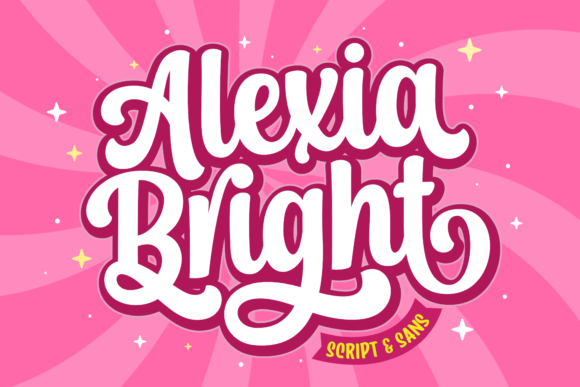
The Elusive Font: My Journey with Alexia Bright
I still remember the frustration of working on a design project, hours spent searching for the perfect font, only to come up empty-handed. My client wanted something elegant, yet playful; delicate, yet impactful. It was as if I was searching for a needle in a haystack. That’s when I stumbled upon Alexia Bright, a beautiful handwritten font that has since become a staple in my design toolkit.
An Honest Review of Alexia Bright
So, what makes Alexia Bright so special? Let’s dive into the good stuff and, of course, a few quirks I’ve encountered.
• ✨ Elegant and flowing script: Alexia Bright boasts beautiful, well-balanced characters that exude elegance and sophistication.
• 🎨 Versatility: This font pairs well with a wide range of designs, from whimsical crafts to more formal projects.
While Alexia Bright is an excellent font, there are a few things to keep in mind:
• ⚠️ Limited availability of certain characters: As with any font, some characters might be less common or require a bit more digging to find.
• 🤔 May require some experimentation: With so many glyphs and swashes available, it might take some trial and error to find the perfect combination for your design.
The Story Behind Alexia Bright
While the origins of Alexia Bright might be shrouded in mystery, it’s clear that the designer aimed to create a font that would bring a touch of elegance and playfulness to any project. Whether inspired by classic calligraphy or modern digital art, Alexia Bright is a testament to the power of typography in design.
Q: What makes Alexia Bright unique?
A: Alexia Bright stands out for its delicate, elegant, and flowing script, making it perfect for a wide range of design projects.